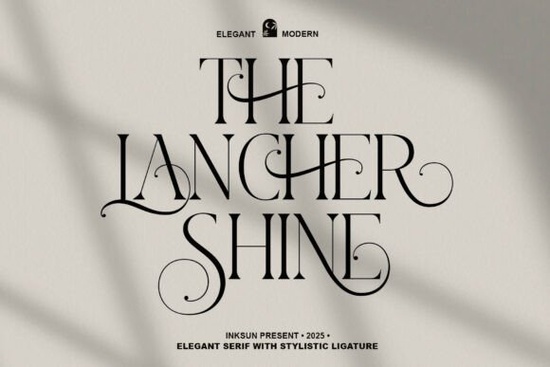
When it comes to adding a touch of timeless luxury to your design projects, The Lancher Shine Font is an excellent choice. This elegant serif font is designed to bring sophistication and class to any modern design, making it perfect for high-end branding, editorial mastheads, luxury wedding stationery, and chic logo design.
Why Choose The Lancher Shine Font?
The Lancher Shine Font is more than just a pretty face; it's a versatile and refined typeface that can transform your designs. Whether you're working on a boutique identity or a premium lifestyle magazine, this font provides a professional finish that radiates class. Its clean lines and subtle serifs make it easy to read while still maintaining an air of elegance.
Perfect for High-End Branding
For designers and small businesses looking to create a high-end brand image, The Lancher Shine Font is a natural fit. It exudes a sense of luxury and refinement, making it ideal for logos, business cards, and other branding materials. The font's classic yet modern feel ensures that your brand stands out in a sophisticated way.
Ideal for Editorial and Publishing Projects
Editorial and publishing projects often require fonts that are both elegant and legible. The Lancher Shine Font strikes the perfect balance. Its clean and refined appearance makes it suitable for mastheads, article titles, and body text in magazines and books. This versatility means you can use it across various sections of your publication without losing its impact.
A Must-Have for Wedding Stationery
Luxury wedding stationery demands a font that is both beautiful and timeless. The Lancher Shine Font fits the bill perfectly. Its elegant and graceful design adds a touch of sophistication to invitations, save-the-dates, and thank-you cards. Couples and event planners will appreciate how this font enhances the overall aesthetic of their special day.
Chic Logo Design
Creating a chic and memorable logo is essential for any brand. The Lancher Shine Font offers a refined and professional look that can help your logo stand out. Its elegant serifs and balanced proportions make it a great choice for logos that need to convey a sense of luxury and professionalism. Whether you're designing a logo for a boutique, a high-end restaurant, or a fashion brand, this font can help you achieve the desired effect.
Comparing with Other Serif Fonts
While The Lancher Shine Font is a standout choice, it's always good to compare it with other popular serif fonts. For example, the Kaviera Font offers a similar level of elegance but with a slightly different character set. Another option is the Tuscany Shade Font, which has a more traditional and ornate style. Each of these fonts has its unique strengths, so it's worth considering them based on the specific needs of your project.
How to Use The Lancher Shine Font Effectively
To get the most out of The Lancher Shine Font, consider the following tips:
- Pair with Complementary Fonts: Use The Lancher Shine Font as the main typeface and pair it with a simple sans-serif font for body text. This combination creates a balanced and visually appealing design.
- Choose the Right Colors: Opt for a color palette that complements the elegance of the font. Neutral colors like black, white, and gold work well, but don't be afraid to experiment with soft pastels or deep jewel tones.
- Test Readability: While The Lancher Shine Font is elegant, it's important to ensure it remains readable. Test it at different sizes and on various backgrounds to make sure it works well in all contexts.
Final Thoughts
The Lancher Shine Font is a versatile and elegant choice for any designer, crafter, or small business looking to add a touch of luxury to their projects. Its timeless design and professional finish make it a valuable addition to your font collection. By following the tips outlined above, you can effectively incorporate this font into your designs and create stunning, sophisticated visuals.